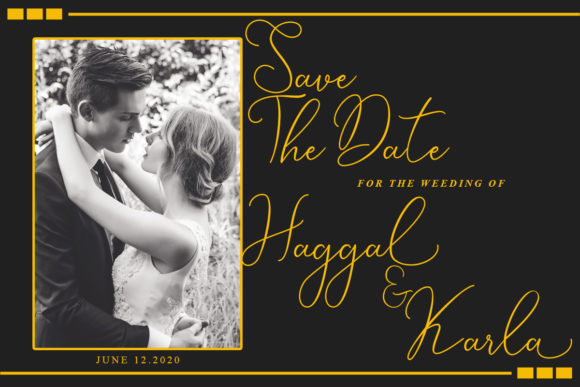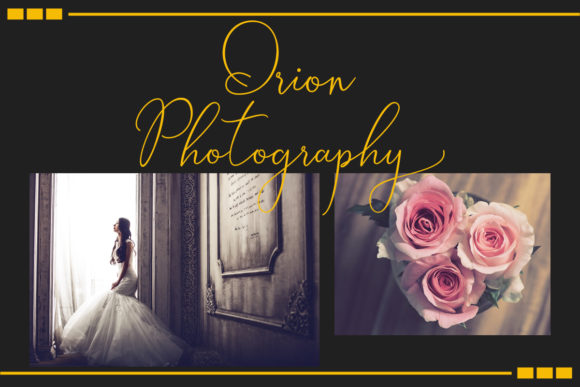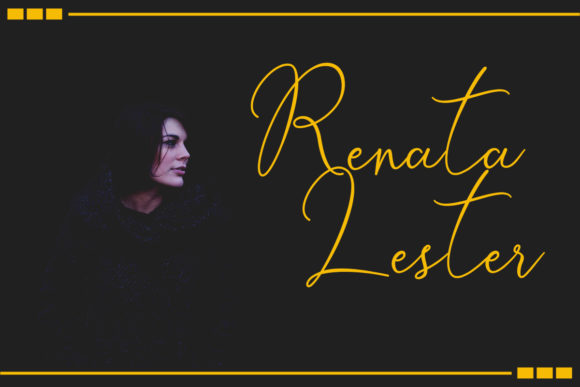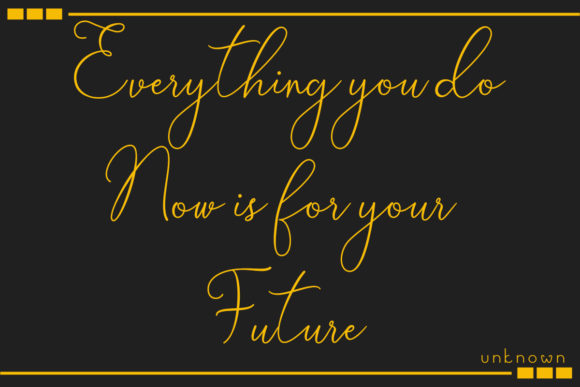
Introducing Billkia Font: The Ultimate Handwritten Elegance for Designers and Crafters
In the realm of typography, few fonts manage to capture the essence of elegance and delicacy as effortlessly as Billkia. This incredibly distinct, delicate, and timeless handwritten font has been making waves in the design community, and for good reason. Whether you’re working on wedding invitations, thank you cards, quotes, greeting cards, logos, business cards, or any other design that requires a touch of personal flair, Billkia is the perfect choice.
The Charm of Billkia
Billkia’s charm lies in its unique blend of simplicity and sophistication. Each letter is crafted with precision and care, resulting in a font that exudes a sense of refinement and luxury. The delicate strokes and subtle variations in line width give Billkia a distinctly handwritten feel, making it an excellent choice for designers and crafters looking to add a personal touch to their work.
One of the standout features of Billkia is its versatility. This font can be used in a wide range of design applications, from formal events like weddings and anniversaries to more casual projects like greeting cards and quotes. The font’s timeless quality ensures that it will never go out of style, making it a valuable addition to any designer’s toolkit.
Perfect for Wedding and Event Design
Wedding designers and event planners, rejoice! Billkia is an excellent choice for creating stunning wedding invitations, save-the-date cards, and other event-related materials. The font’s elegant and sophisticated feel perfectly complements the romance and joy of these special occasions. Additionally, Billkia’s delicate nature makes it an excellent choice for creating beautiful and intricate designs that will leave a lasting impression on your guests.
Tips for Using Billkia in Your Designs
To get the most out of Billkia, here are a few tips to keep in mind:
- Pair Billkia with a simple, sans-serif font for a striking contrast that will make your design pop.
- Don’t be afraid to mix and match different font sizes and styles to create visual hierarchy and emphasis.
- Use Billkia to add a personal touch to your designs, whether it’s a handwritten quote or a custom logo.
Why Designers and Crafters Love Billkia
So, why has Billkia become a favorite among designers and crafters? Here are just a few reasons:
- Ease of use: Billkia is incredibly easy to read and work with, making it perfect for designers of all skill levels.
- Flexibility: Billkia can be used in a wide range of design applications, from digital projects to print materials.
- Uniqueness: Billkia’s distinctive feel sets it apart from other fonts, ensuring that your designs will stand out from the crowd.
- Timelessness: Billkia’s classic design ensures that it will never go out of style, making it a valuable investment for any designer.
In conclusion, Billkia is a truly exceptional handwritten font that deserves a spot in every designer’s toolkit. Its unique blend of elegance, delicacy, and timelessness makes it perfect for a wide range of design applications, from wedding invitations to business cards. Whether you’re a seasoned designer or a crafty DIY enthusiast, Billkia is sure to become a favorite. So why wait? Give Billkia a try today and experience the power of beautiful typography for yourself!